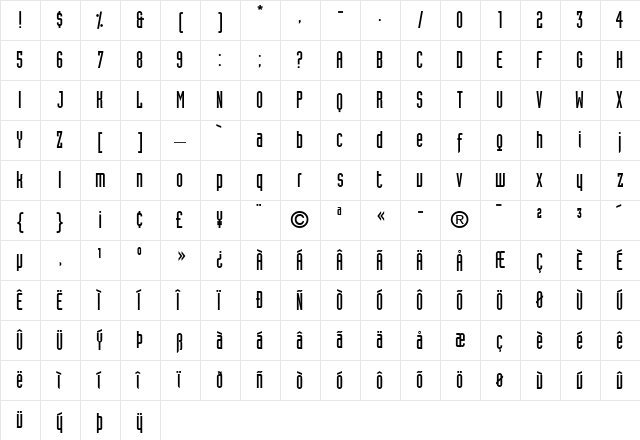
Industria SolidA Regular Font Preview
Industria SolidA Regular
Design Context for Industria SolidA Typeface
Industria SolidA is a composed and adaptable typeface that performs quietly and consistently across a wide range of design contexts.